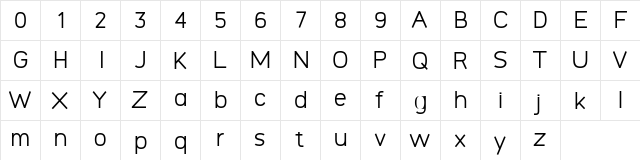
Logico-Sans-Personal-Use-Only Regular
| Foundry | Parker Creative, LLC |
| Designer | Alan Parker |
Design Context for Logico-Sans-Personal-Use-Only Typeface
Logico-Sans-Personal-Use-Only is a composed and adaptable typeface that performs quietly and consistently across a wide range of design contexts.
Pro Tip: Pair Logico-Sans-Personal-Use-Only with a font of contrasting weight or personality to build a more expressive typographic hierarchy.